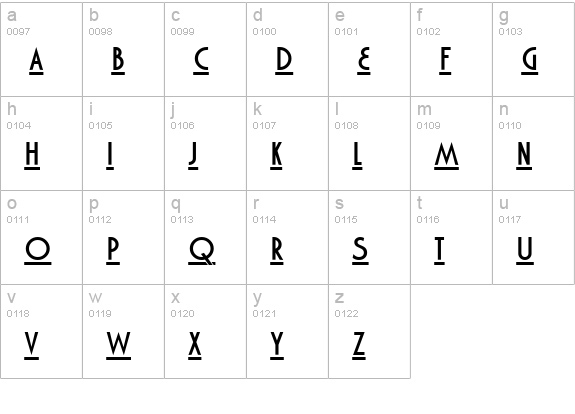
Marquisette BTN Lined Bold Font Details
Marquisette BTN Lined Bold is a strong, high-contrast variant in the Marquisette typeface family \xE2\x80\x94 well suited to headlines, attention-grabbing titles, and strong calls-to-action.
Marquisette BTN Lined Bold font is a stunning display typeface that exudes elegance and sophistication. Its bold and lined design adds a touch of modernity, making it perfect for attention-grabbing headlines, posters, and logos. This font showcases a unique blend of sharp edges and smooth curves, creating a captivating visual appeal. The thick lines create a strong presence, while the delicate detailing within each character adds a sense of finesse. With its versatility and eye-catching aesthetics, Marquisette BTN Lined Bold font is a must-have for designers looking to make a bold statement. Whether it's for a fashion magazine, a luxury brand, or a high-end event, this font is sure to elevate any design project to new heights. What makes Marquisette BTN Lined Bold font even more desirable is that it is available for free download at FontsMarket.com. This means that designers and creatives can easily access and utilize this stunning typeface without any financial constraints. Freely available, Marquisette BTN Lined Bold font allows designers to experiment and explore their creativity without worrying about budget limitations. Its accessibility makes it a valuable asset for both personal and commercial projects. So, if you're looking for a font that effortlessly combines boldness with elegance, look no further than Marquisette BTN Lined Bold font. Download it for free at FontsMarket.com and let your designs shine with its captivating charm.